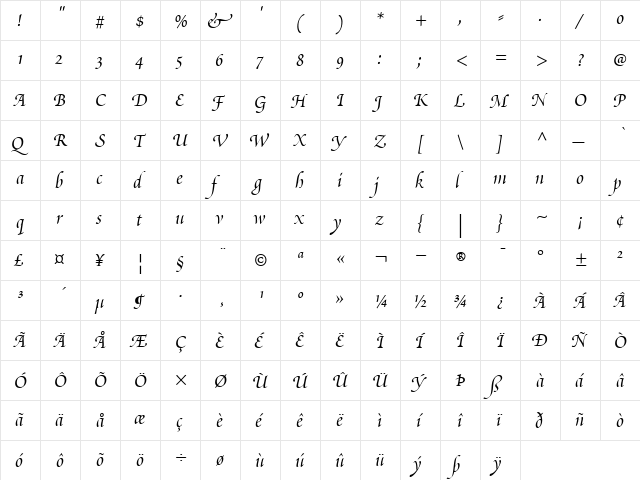
PoeticaChanceryIII RomanItalic
Design Context for PoeticaChanceryIII Typeface
PoeticaChanceryIII takes a measured approach to typography — its balanced proportions and neutral character make it a reliable workhorse for both digital and print work. The dynamic lean of this cut emphasises speed and emphasis in any layout.